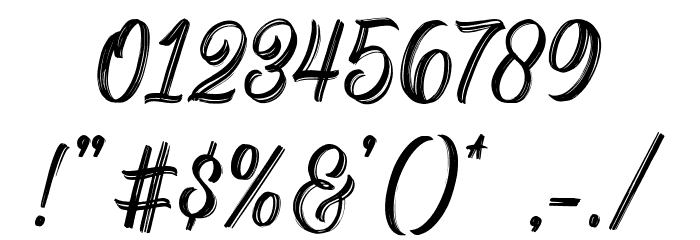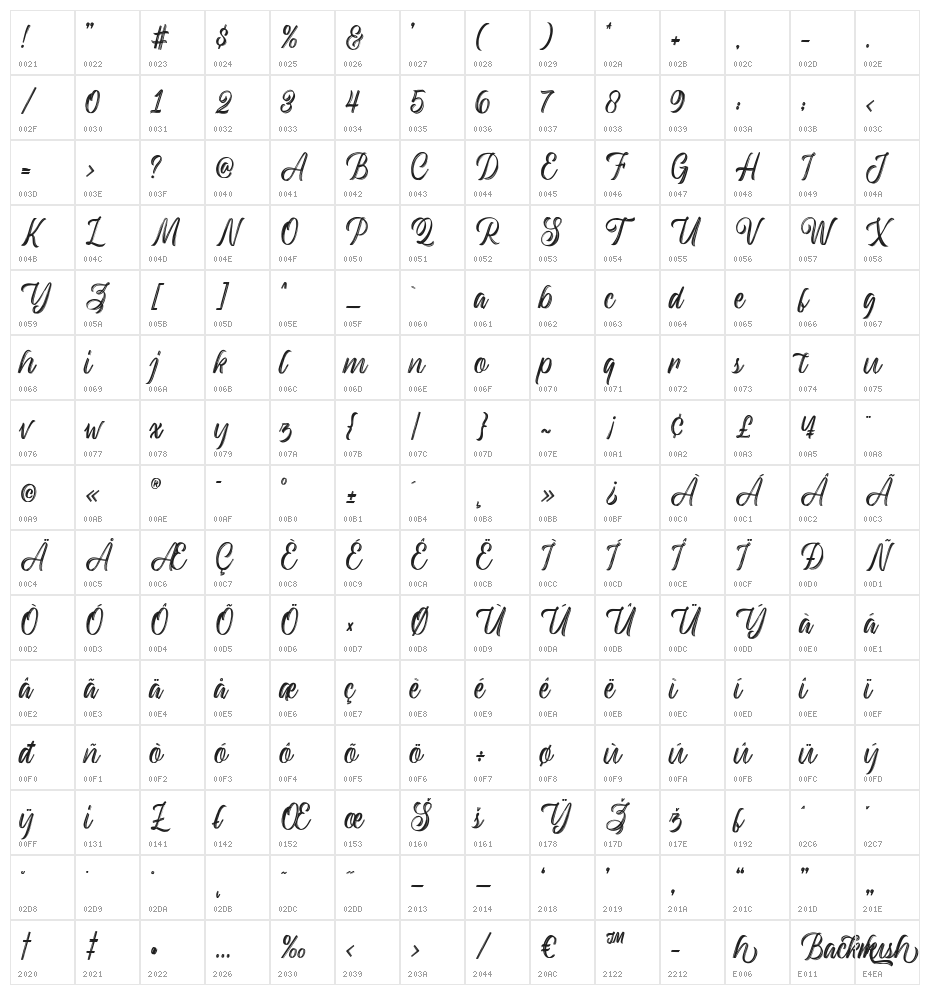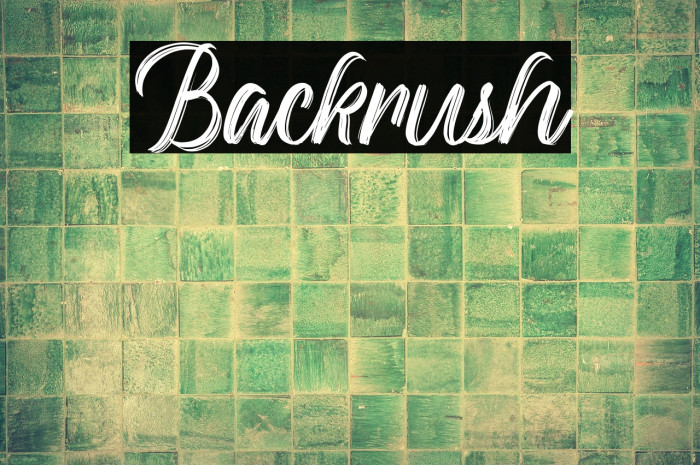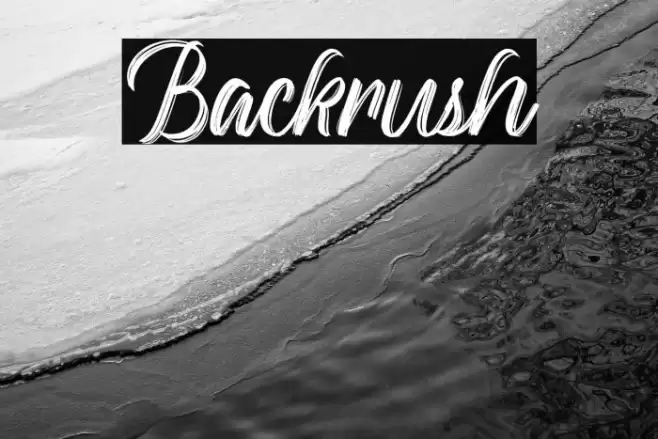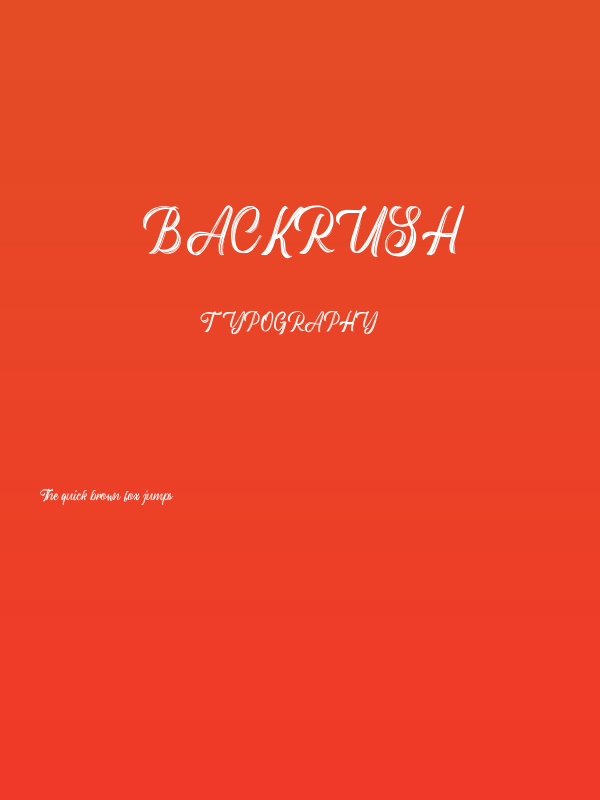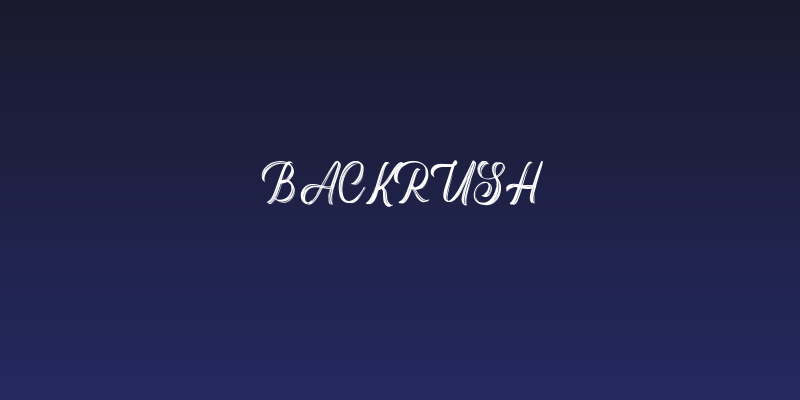
Backrush Font
Backrush Description
This font features a dynamic and energetic script style, characterized by its flowing and connected letterforms. The strokes are bold and expressive, with a brush-like texture that adds a sense of movement and flair. The uppercase letters are elegant and slightly slanted, while the lowercase letters maintain a consistent rhythm and flow. Numbers and special characters are designed with the same attention to detail, ensuring a cohesive look across all elements. The overall appearance is both stylish and modern, making it suitable for a variety of creative applications.
| Proposed Projects | Ideal for branding, invitations, posters, and any project requiring a stylish, handwritten touch. |